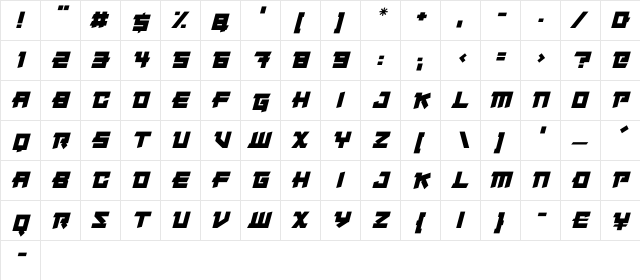
Japanese Robot Italic
Design Context for Japanese Robot Typeface
Japanese Robot is a composed and adaptable typeface that performs quietly and consistently across a wide range of design contexts. The slanted form adds forward momentum and visual energy.
Pro Tip: Use Japanese Robot for emphasis, pull quotes, and subheadings where its slanted energy can add rhythm to the layout.